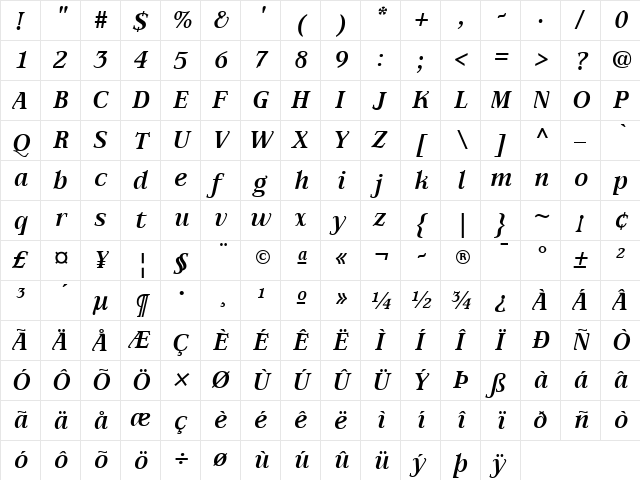
AIAlign Italic
AIAlign Italic Font Details
| Foundry | John Pugh |
Design Context for AIAlign Typeface
AIAlign is a composed and adaptable typeface that performs quietly and consistently across a wide range of design contexts. Its italic angle brings a sense of urgency and motion to the letterforms.